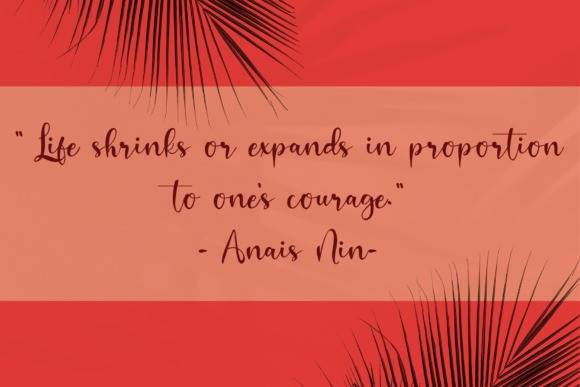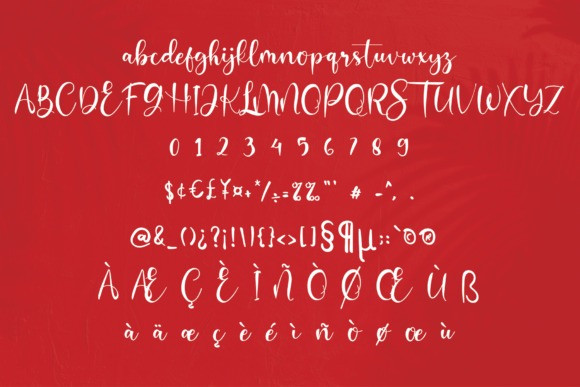
Fragrant Script Font
Fragrant is a bold and elegant handwritten font. Simple and easy to use, this font will be very beautiful if you mix it with your various craft designs.